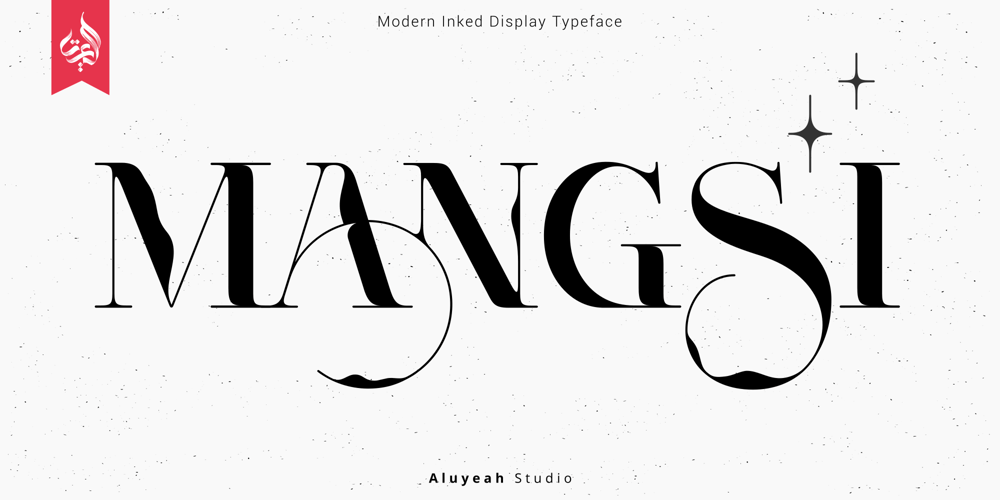
Al Mangsi Font Family was designed by Linggar Sundoro and published by Aluyeah Studio. Al Mangsi contains 1 styles and family package options. Mangsi in Javanese means ink. We want to create a modern display typeface with an inked-like feel by combining clean modern serif strokes, brush strokes and the curved line made by the ink tank.Mangsi is a modern inked display typeface that unites the beauty of the old lines with the clean modern lines. A simple, yet distinctive, elegant font that can be applied to many areas of design. Coming with 170+ stunning and super easy to use alternates and ligatures.To get results like the preview just type M.3A.NGS.3I